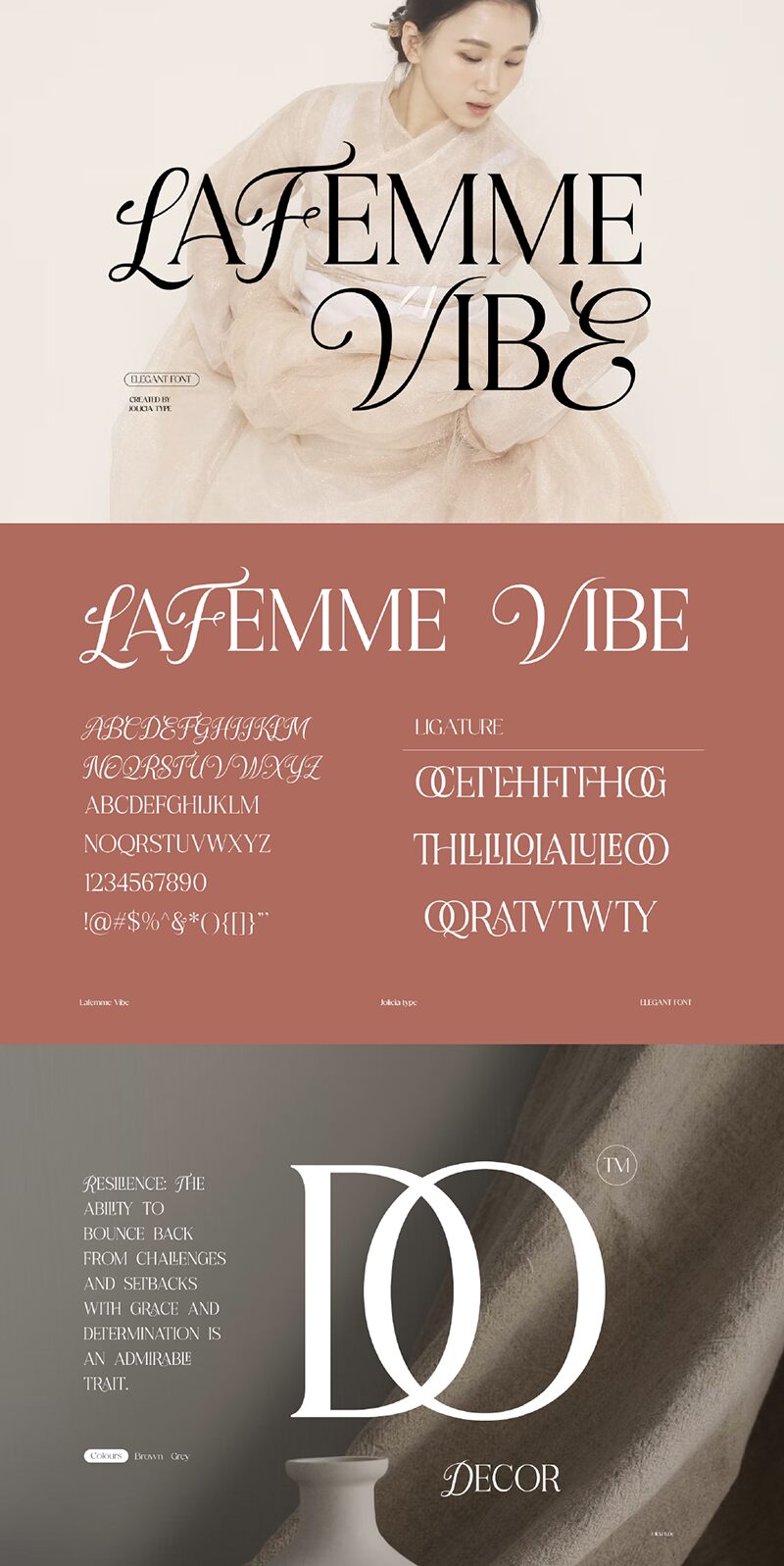
Lafemme Vibe font, designed by Jolicia Type Foundry, is a serif font masterpiece that balances elegance and modernity with classic charm. Lined stylishly and refined to perfection, its luxurious feel adds value and beauty in every detail of the project where this typeface is used. LaFemme Vibe’s sophisticated aesthetic lies within the thin yet solid glyphs.
Use this free serif font in logotype designs for jewelry brands; featured titles for women-focused magazines; ads related to skincare products; social media posts on aesthetics; backgrounds for feminine business cards or official documents; packaging designs for perfumes, makeup products, chocolate bars; fashion brand website headers and subheaders.